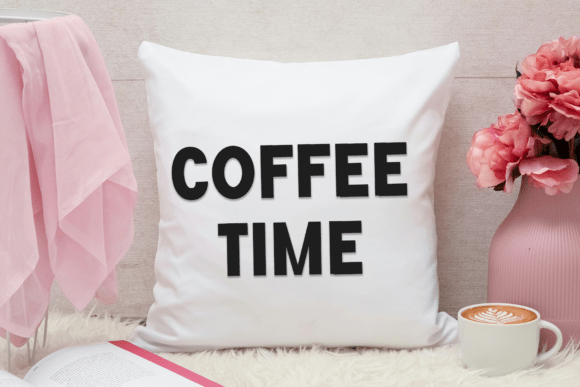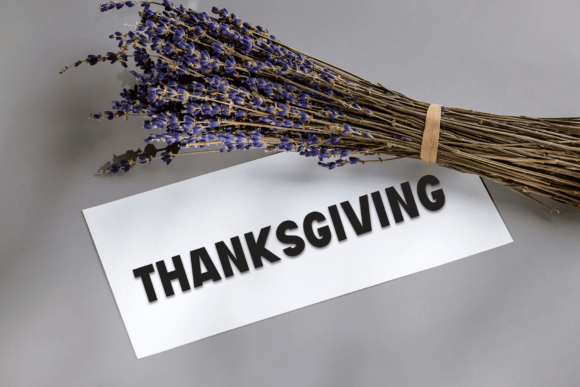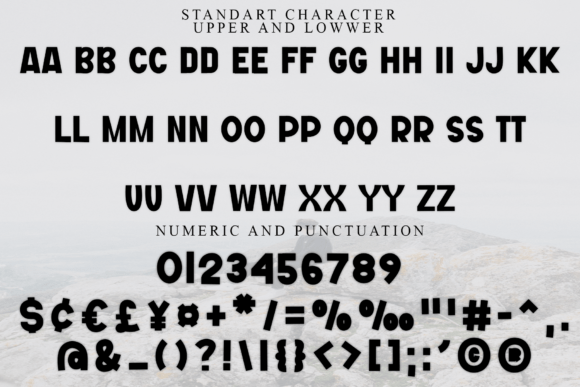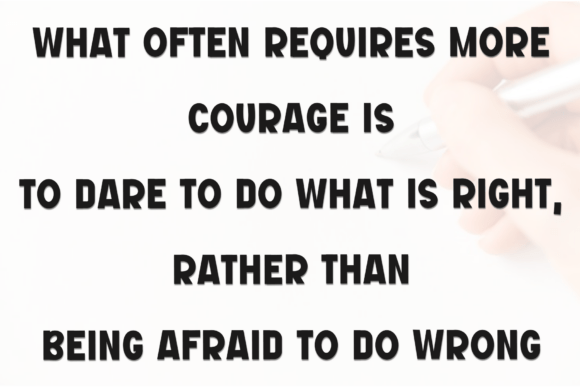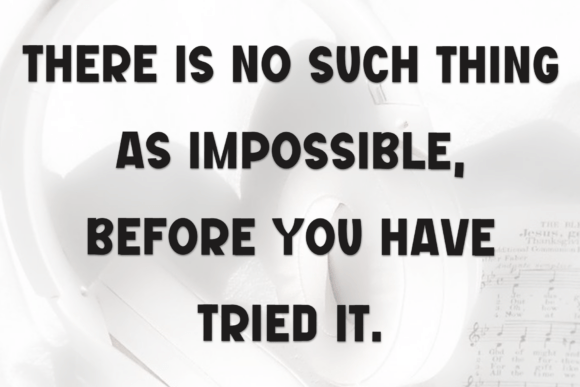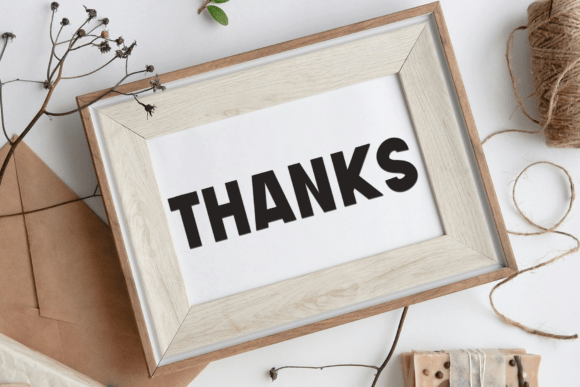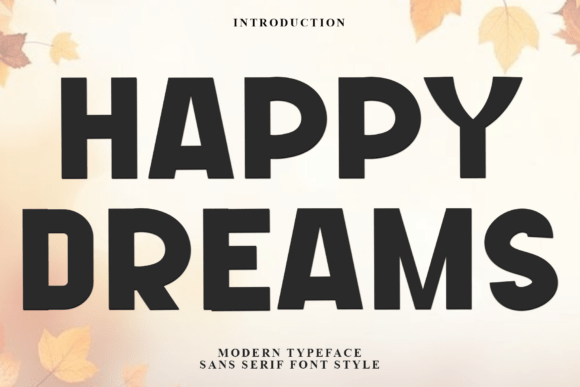
Deck the Halls with Typography: Introducing Happy Dreams Font
As the holiday season approaches, designers often find themselves searching for the perfect font to capture the magic and wonder of the time of year. It’s that moment when you’re browsing through font libraries, and you stumble upon a font that makes your heart skip a beat – the one that says, “This is it, this is the one!” For many, that font is Happy Dreams, a festive and merry typeface that embodies the spirit of the holiday season.
Perfect for greeting cards, gift tags, and holiday-themed projects, Happy Dreams Font brings a cheerful and nostalgic ambiance to your words. With its decorative elements and whimsical flair, it adds a touch of enchantment to your designs, making it a valuable asset for any designer looking to create memorable holiday content.
Key Features of Happy Dreams Font
• Size: The font family includes 6 font weights, ranging from Light to Extra Bold, allowing for a variety of design applications and styles.
• Unique Characteristics: The font features a unique, hand-drawn design with subtle irregularities and imperfections, giving it a warm and inviting feel.
• Language Support: Happy Dreams Font supports a wide range of languages, including Latin, Cyrillic, and Greek, making it a versatile choice for global branding and design projects.
• Kerning and Ligatures: The font includes advanced kerning and ligature pairs, ensuring smooth text rendering and a professional appearance.
Happy Dreams Font Review
Overall, I’d say the Happy Dreams Font is a lovely addition to any design project. It’s ✨ playful, whimsical, and perfect for creating a lighthearted atmosphere. I particularly enjoy the way the font’s rounded edges and soft curves evoke a sense of friendliness and approachability.
• ✨ The font’s versatility: Happy Dreams can be used for a wide range of projects, from children’s books to greeting cards and even branding materials.
• ✨ The font’s readability: Despite its playful nature, Happy Dreams is surprisingly easy to read, making it perfect for long blocks of text.
• ✨ The font’s customizability: With its many weight and style options, designers can easily adapt Happy Dreams to suit their specific design needs.
One thing that might be a drawback for some designers is that Happy Dreams can feel a bit ⚠️ overused in certain contexts. To avoid this, it’s essential to use the font in moderation and pair it with other, more contrasting fonts to create visual interest.
Additionally, the font’s soft curves can sometimes make it difficult to achieve a clean, crisp look, especially when working with small text sizes or tight margins.
To get the most out of the “Happy Dreams” font, use it sparingly and in creative ways, such as in title text, headings, or as a accent font. You can also pair it with other fonts to create a unique and eye-catching design.
The “Happy Dreams” font is perfect for creative projects, such as greeting cards, posters, and social media graphics. It’s also great for adding a touch of whimsy to business presentations and marketing materials.
Alternatives to Happy Dreams Font
Great Vibes is a beautiful, handwritten font perfect for creating a whimsical and dreamy atmosphere. It’s ideal for use in designs that require a touch of elegance and sophistication. Great Vibes is more cursive and flowing compared to Happy Dreams Font, which makes it suitable for use in headings, quotes, and other text elements that require a personal touch.
Cream Soda is a distressed, vintage-inspired font that adds a unique and quirky feel to designs. It’s perfect for use in projects that require a retro or nostalgic vibe. Compared to Happy Dreams Font, Cream Soda has a more rugged and worn appearance, making it suitable for use in designs that require a bit of edge and attitude.
Q: Is the Happy Dreams Font optimized for small screen displays?
Yes, the Happy Dreams Font is designed with mobile devices in mind and features a range of optimized weights and styles that ensure clear readability on small screens. The font also supports various device resolutions and screen densities.